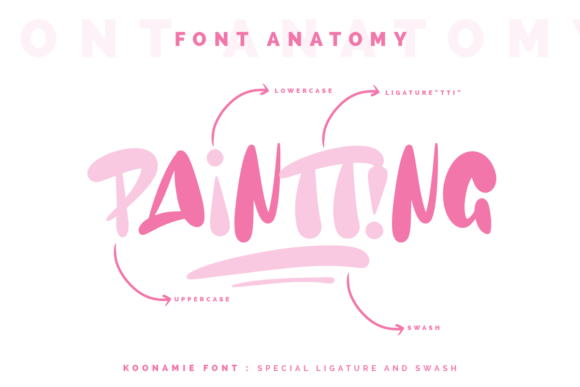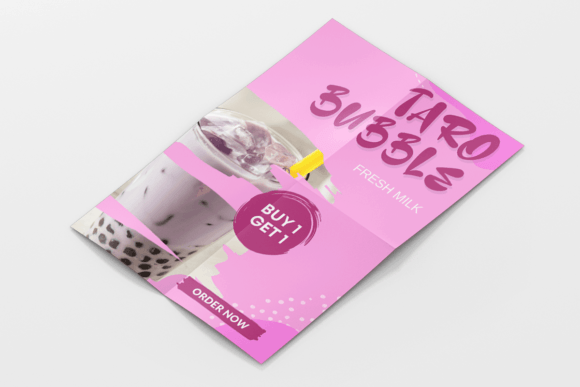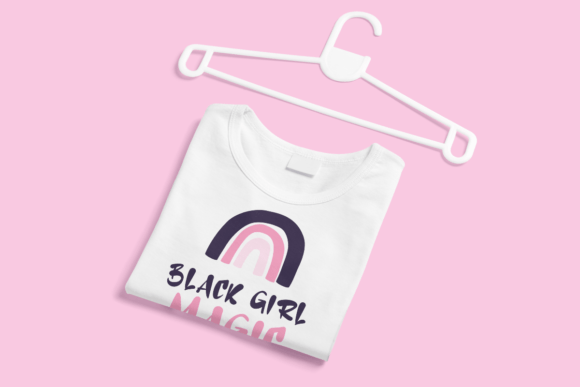
Introduction to Koonamie Font
Have you ever been working on a creative project and suddenly, you need that one perfect font to tie everything together? It’s like searching for the missing piece of a puzzle. For designers, this moment is all too familiar, and it’s what makes discovering a high-quality design resource like the Koonamie Font so exhilarating.
Imagine a font that not only adds a touch of whimsy to your design but also offers a wide range of glyphs and ligatures to take your project to the next level. The Koonamie Font is exactly that – a fun and playful display font that’s perfect for designers looking to add a unique touch to their work. With its transparent background and PUA encoding, this font is a valuable asset for any creative project.
Key Features of Koonamie Font
- Unique, high-quality design: Koonamie Font offers a distinctive and creative visual style, perfect for various design projects.
- Design versatility: Koonamie Font is suitable for a wide range of creative projects, including logos, branding materials, and digital art.
Honest Review: Koonamie Font
I recently stumbled upon the Koonamie Font and was impressed by its unique style. As a designer, I’m always on the lookout for high-quality design resources to elevate my creative projects.
The Koonamie Font is a free download that offers a transparent background, making it easy to customize and integrate into any design. Its modern and clean aesthetic makes it perfect for a wide range of applications, from digital displays to print materials.
- Unique and modern design
- High-quality font with transparent background
- Perfect for creative projects and digital displays
However, I did notice a few limitations:
- Limited character set
- No support for bold or italic styles
- May not be suitable for print materials with small font sizes
Overall, I think the Koonamie Font is a great addition to any designer’s toolkit. While it has some limitations, its unique style and high-quality design make it a valuable resource for creative projects.
Design Resource for Creative Projects
The Koonamie Font is a versatile and high-quality design resource that can elevate your creative projects. To get the most out of it, follow these steps:
Common Use Cases for Koonamie Font
The Koonamie Font is ideal for:
- Blogs and websites
- Print materials like brochures and business cards
- Presentation slides and documents
Experiment with different font sizes and colors to create visual interest. Use the Koonamie Font in combination with other design elements to create a cohesive look.
Alternatives to Koonamie Font
Q: Is the Koonamie Font suitable for digital use?
Yes, the Koonamie Font is designed for digital use and is optimized for various screen resolutions and devices. The font’s transparent background and high-quality design make it perfect for digital projects, including websites, social media, and mobile apps.